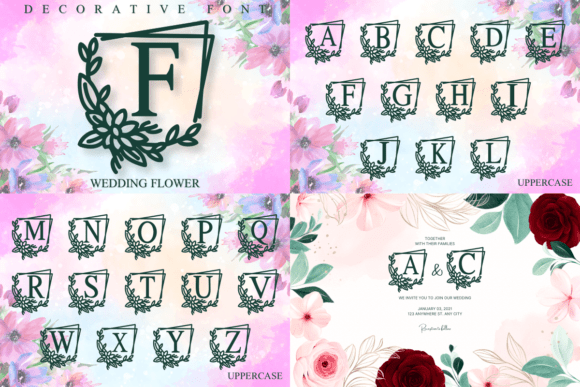
Introducing the Flowers Bundle Font: Elevate Your Designs with Botanical Elegance
The Flowers Bundle Font is a stunning collection of decorative fonts that embodies the essence of botanical elegance and romantic themes. This beautiful bundle features four distinct floral styles, each carefully crafted to add a touch of sophistication and charm to your designs. Whether you’re creating wedding invitations, greeting cards, logos, or feminine branding, the Flowers Bundle Font is the perfect choice to infuse your projects with a delicate floral flair.
The Inspiration Behind the Flowers Bundle Font
The Flowers Bundle Font draws inspiration from the intricate details of botanical illustrations and the romance of floral arrangements. Each font in the bundle combines classic serif structures with intricate flower embellishments, creating a unique and captivating visual experience. The result is a collection of fonts that exude elegance, sophistication, and a deep connection to nature.
Meet the Four Floral Styles of the Flowers Bundle Font
The Flowers Bundle Font features four distinct floral styles, each with its own unique character and charm. These styles include:
- Moon Flower: A dreamy and ethereal font, Moon Flower features delicate, crescent-shaped embellishments that add a touch of whimsy to your designs.
- Flower Vase: This font showcases intricate, vase-like embellishments that bring a sense of classic elegance to your projects.
- Flower Valentine: With its heart-shaped flourishes, Flower Valentine is the perfect choice for romantic designs, such as Valentine’s Day cards and wedding invitations.
- Wedding Flower: This font features beautiful, ornate embellishments that evoke the magic of wedding celebrations and special occasions.
Key Features of the Flowers Bundle Font
The Flowers Bundle Font boasts a range of features that make it an ideal choice for designers and crafters. Some of the key features include:
- Classic Serif Structures: Each font in the bundle features classic serif structures that provide a sense of timelessness and sophistication.
- Intricate Flower Embellishments: The fonts are adorned with intricate flower embellishments that add a touch of elegance and romance to your designs.
- Versatile Use: The Flowers Bundle Font is perfect for a wide range of projects, including wedding invitations, greeting cards, logos, feminine branding, and spring-inspired designs.
- Elegant and Refined: The fonts are designed to bring a sense of refinement and poise to your designs, making them perfect for high-end branding and marketing materials.
Perfect for Wedding and Spring-Inspired Projects
The Flowers Bundle Font is particularly well-suited for wedding and spring-inspired projects. The fonts’ delicate floral embellishments and classic serif structures evoke the romance and beauty of botanical illustrations, making them perfect for:
- Wedding Invitations: Create stunning wedding invitations that set the tone for a beautiful and elegant celebration.
- Greeting Cards: Add a touch of elegance to your greeting cards, making them perfect for special occasions and holidays.
- Feminine Branding: Use the Flowers Bundle Font to create feminine and elegant branding that speaks to your target audience.
- Spring-Inspired Designs: Bring the beauty of spring to your designs with the Flowers Bundle Font, perfect for projects that celebrate the season.
Why Choose the Flowers Bundle Font?
With so many fonts available, why choose the Flowers Bundle Font? Here are just a few reasons why this font bundle stands out:
- Unique and Eye-Catching: The Flowers Bundle Font features unique and eye-catching designs that will set your projects apart from the crowd.
- High-Quality Design: Each font in the bundle is carefully crafted to ensure high-quality design and attention to detail.
- Versatile and Adaptable: The fonts are versatile and adaptable, making them perfect for a wide range of projects and applications.
- Elegant and Refined: The Flowers Bundle Font exudes elegance and refinement, making it perfect for high-end branding and marketing materials.
The Flowers Bundle Font is a beautiful collection of decorative fonts that embodies the essence of botanical elegance and romantic themes. With its four distinct floral styles, classic serif structures, and intricate flower embellishments, this font bundle is perfect for designers and crafters looking to add a touch of sophistication and charm to their projects. Whether you’re creating wedding invitations, greeting cards, logos, or feminine branding, the Flowers Bundle Font is the perfect choice to elevate your designs and bring a sense of elegance and refinement to your work.
Get Ready to Elevate Your Designs with the Flowers Bundle Font